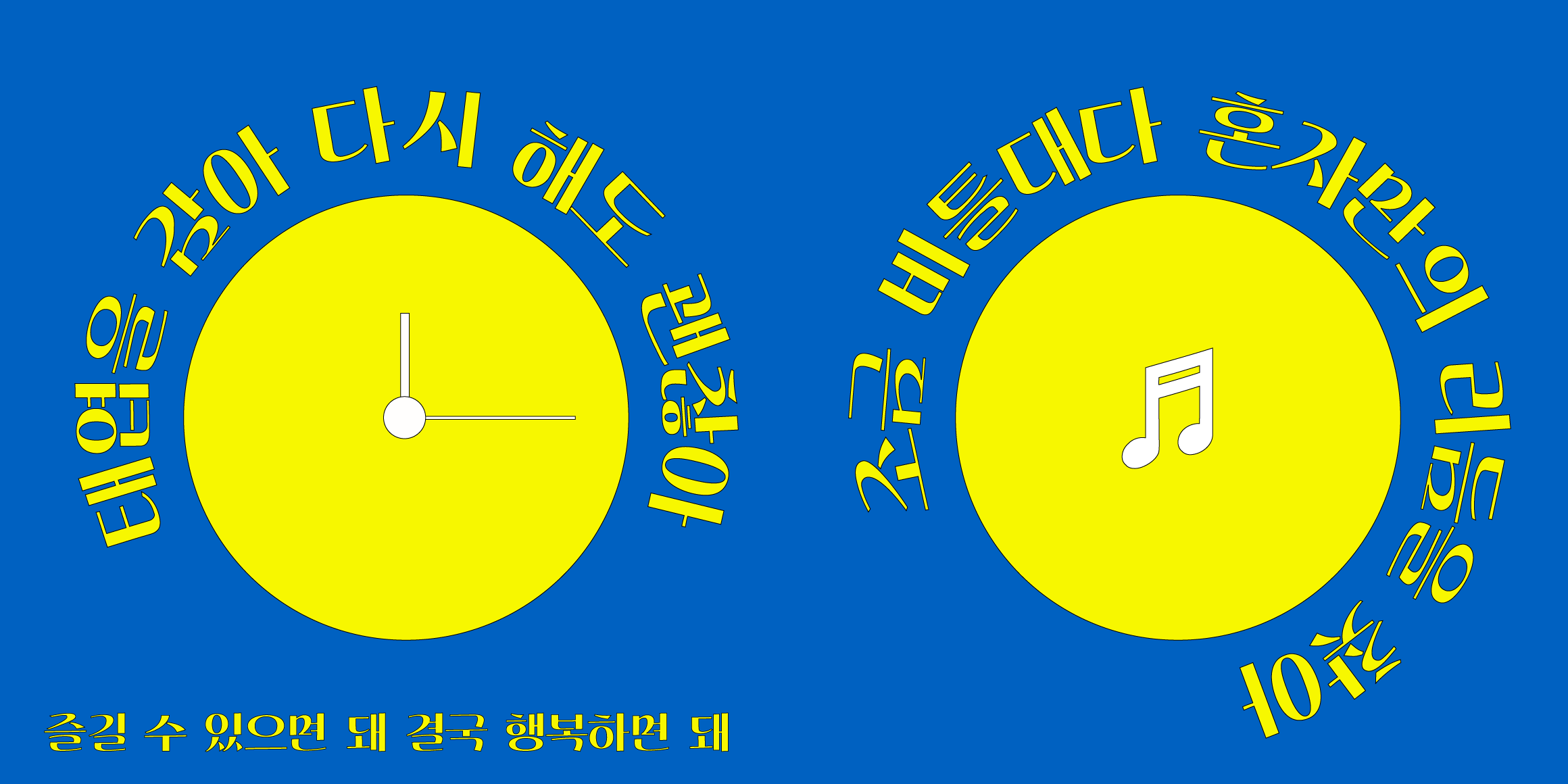
NU Habanera
Volume 1 «Tangibility and Intangibility»
Nutype's first project is an attempt to transform the intangible into a tangible form—type. Drawing inspiration from music, dance, and art, we have created a total of three type families comprising six fonts.
NU Habanera is named after the aria from Act I of the musical Carmen, set in Seville. Inspired by the image of a crimson dress flowing like the waves of a great tide, the passionate dance of Flamenco, and the free-spirited character of the gypsy woman Carmen, NU Habanera captures this vibrant essence. Its most distinctive feature is the continuous flow—an unbroken movement reminiscent of Flamenco dance. Since Flamenco is performed by the human body, it was essential to reflect natural motion and form. This is expressed through the handwritten-like structure of the letterforms and the organic, seamless connections between strokes that seem on the verge of breaking but never do. The Italic style amplifies these connections, using slanting forms to evoke a sense of speed and to emphasize the dynamic, handwritten quality.